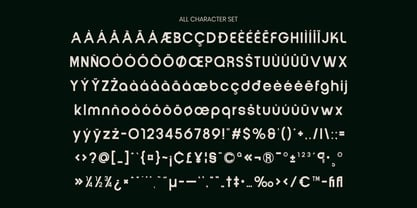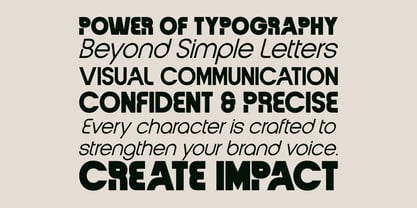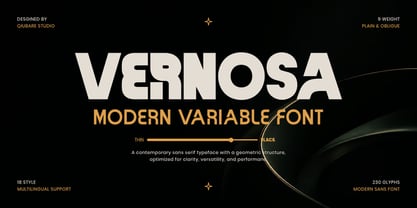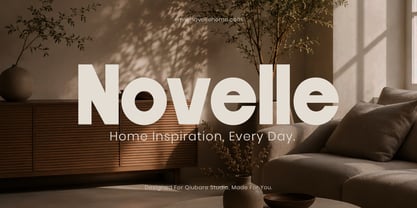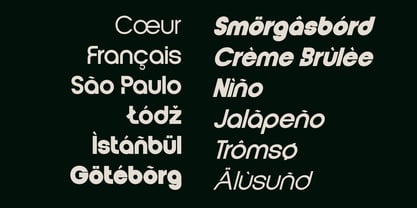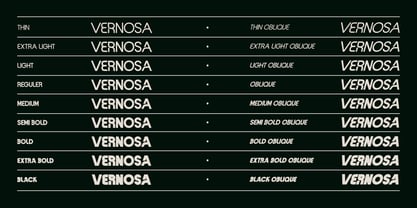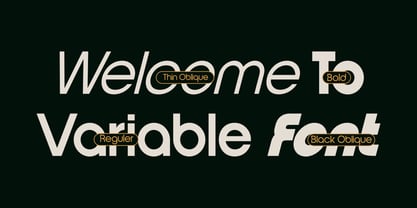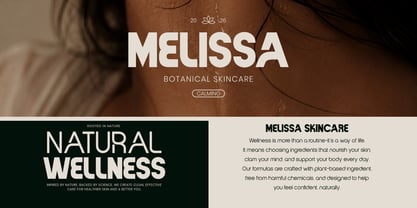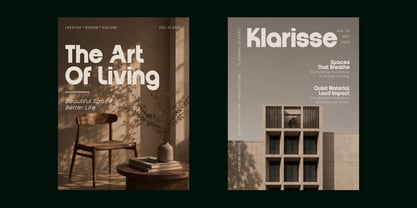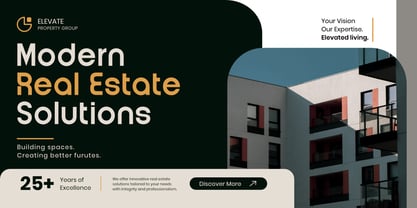
Vernosa Variable
The Vernosa Variable Font Family was designed by Michael Everson and published by Qiubare Studio. Vernosa Variable contains 18 styles and family package options. More about this family
Vernosa is a contemporary variable sans serif font family characterized by clean geometry, refined proportions, and outstanding readability. Perfectly suited for modern branding and digital experiences, Vernosa strikes a harmonious balance between bold personality and minimalist elegance. With 18 styles, including 9 upright weights and 9 oblique styles, this versatile typeface seamlessly adapts to a wide range of applications, from premium branding and editorial layouts to websites, packaging, presentations, and user interfaces. Its meticulously engineered letterforms ensure excellent clarity in both large headlines and smaller text sizes, making Vernosa an ideal choice for designers in search of a professional, timeless, and adaptable sans serif family.